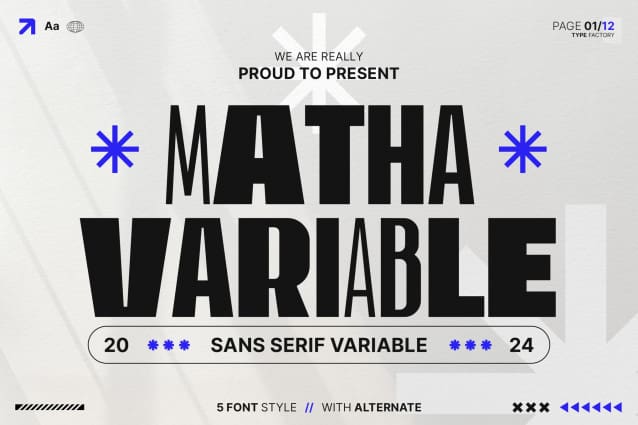
Matha Variable Font Family
Matha Variable Font Family is a versatile sans serif variable font designed to adapt perfectly to different design needs. With its clean lines and customizable weights, Matha is perfect for everything from branding and website design to editorial layouts and user interfaces. Its modern, minimalist style offers excellent readability and flexibility, allowing you to create anything from bold headlines to subtle body text. Whether used digitally or in print, Matha’s dynamic adjustability makes it a highly functional and elegant choice for any project.